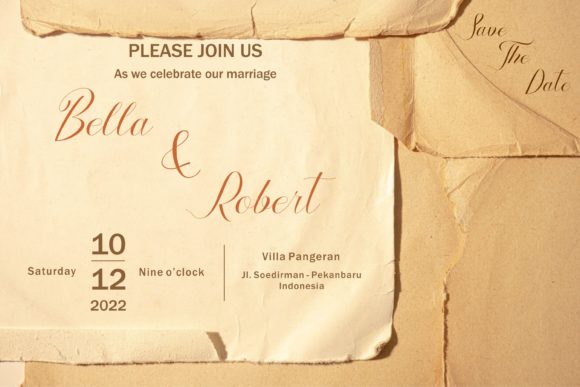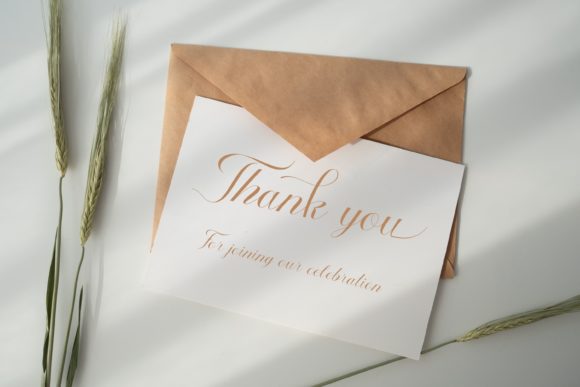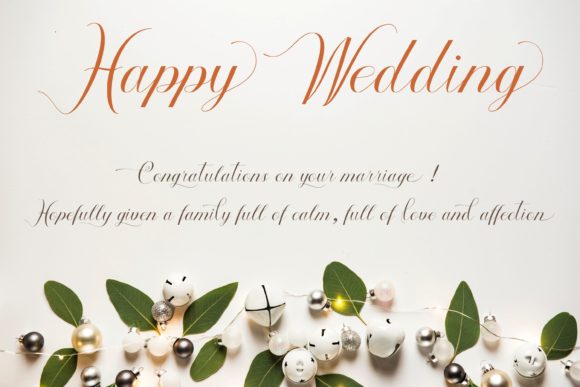
About Autumn Font
Autumn is a script font that embodies delicacy and fashion-forward design. Its graceful strokes and carefully crafted characters make it an excellent choice for a variety of branding projects. Whether you’re creating a captivating logo, designing t-shirt prints, or developing innovative creative products, Autumn’s versatility shines through, adding a touch of elegance to your work.
The font’s delicate nature is well-suited for projects that require a sense of sophistication and refinement. Its fashionable style brings a modern flair to your designs, making them stand out and leave a lasting impression. Autumn’s unique and captivating form adds a distinct charm to any branding endeavor.
One of Autumn’s notable features is its PUA encoding, which provides easy access to a wide range of glyphs and swashes. This feature empowers you to explore various design options and customize your creations to perfection. Whether you’re embellishing a logo with decorative elements or adding a stylish touch to your t-shirt designs, Autumn’s PUA-encoded glyphs and swashes give you the creative freedom to bring your vision to life.
As you work with Autumn, you’ll discover its adaptability and potential to enhance a diverse array of projects. Its combination of delicate elegance and fashionable flair makes it a versatile asset in your design toolkit. From logos to apparel and beyond, Autumn’s ability to infuse your projects with a touch of sophistication and charm is sure to captivate your audience and elevate your brand’s visual identity.